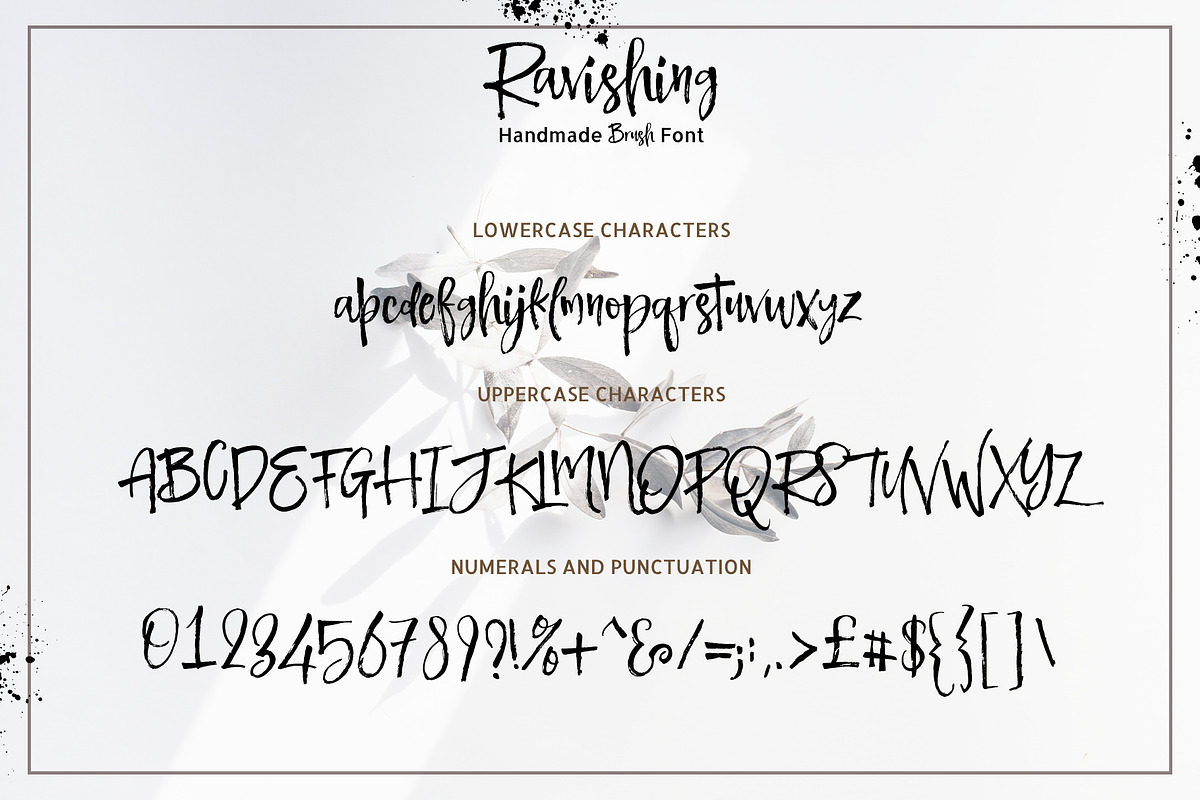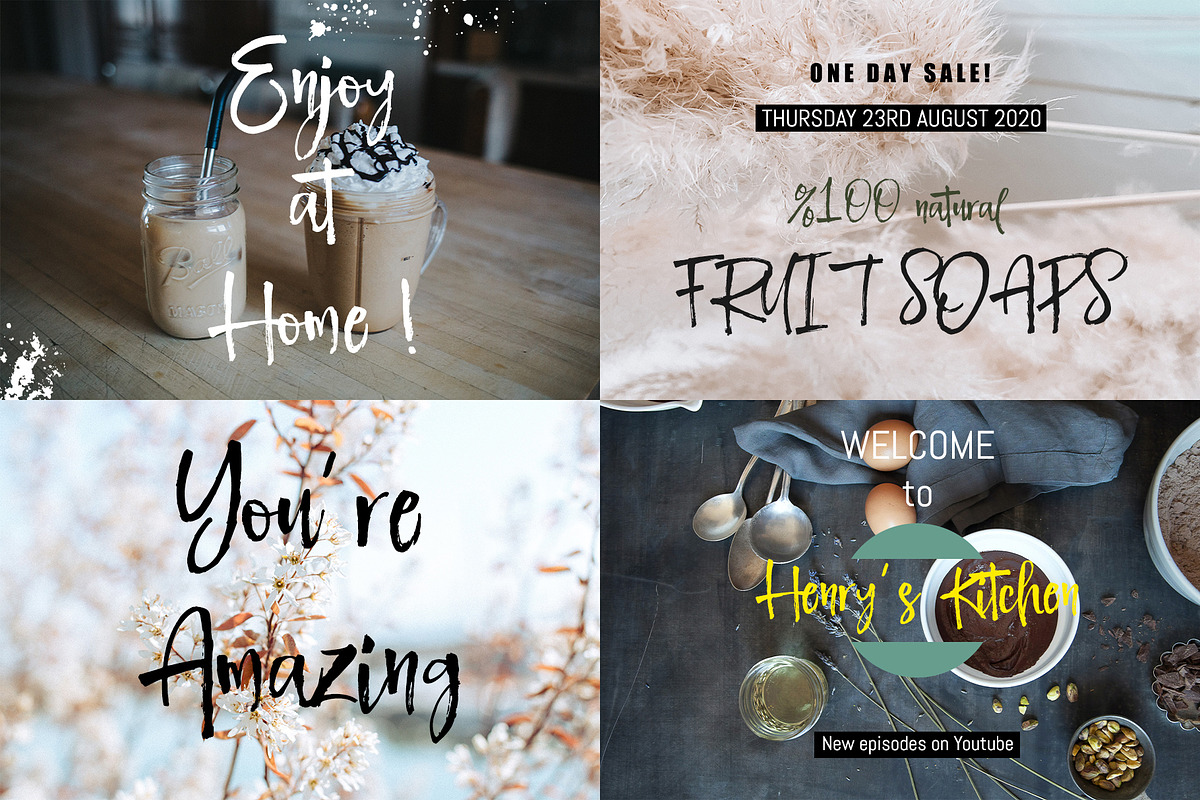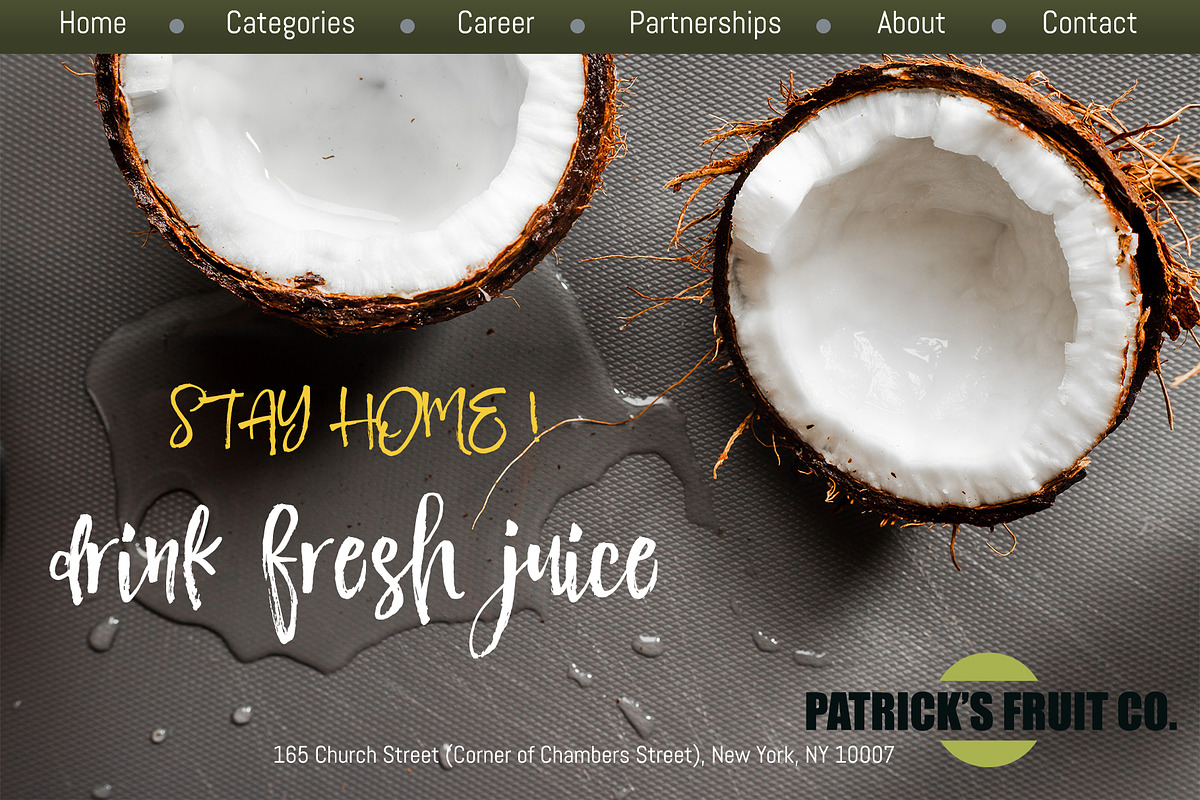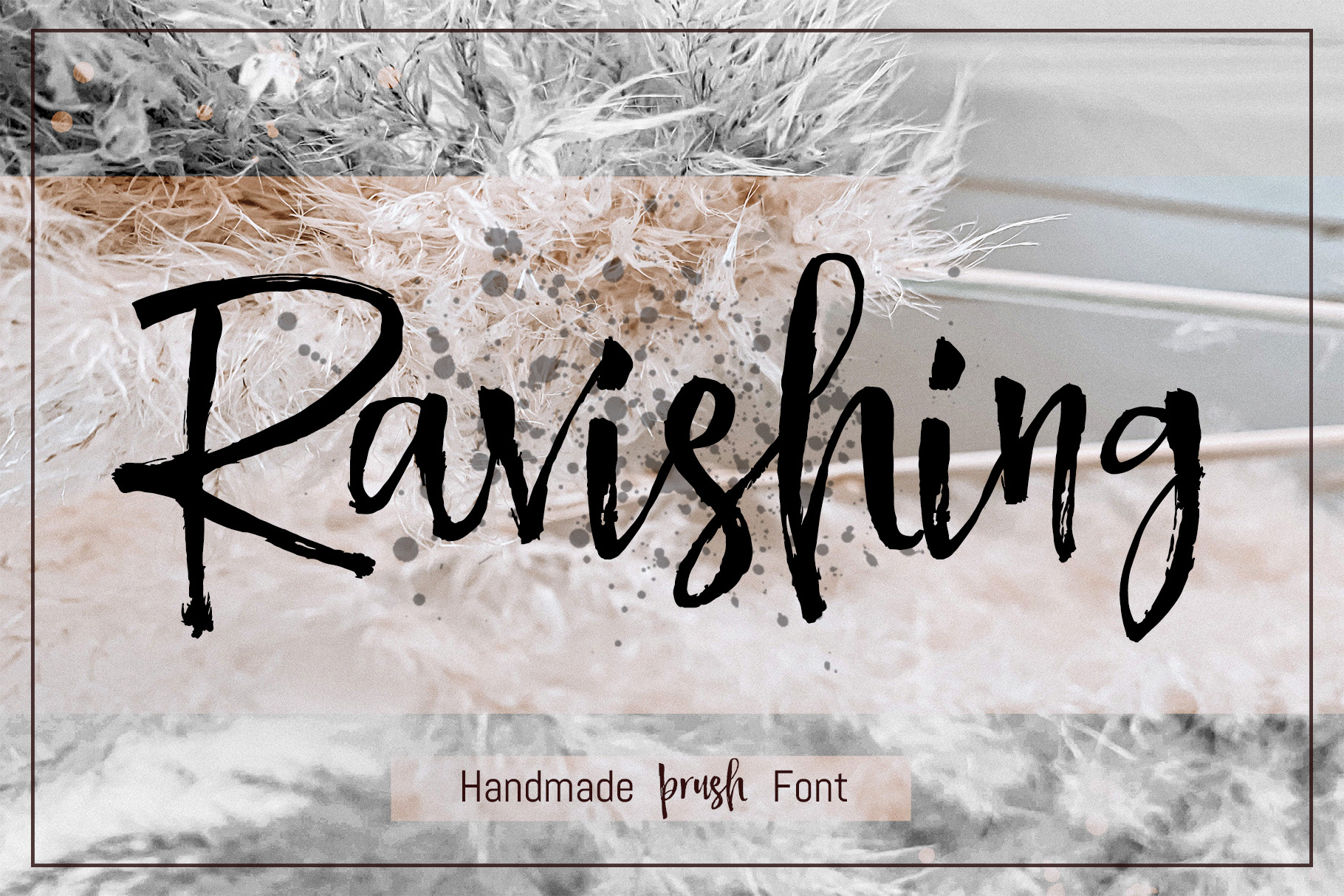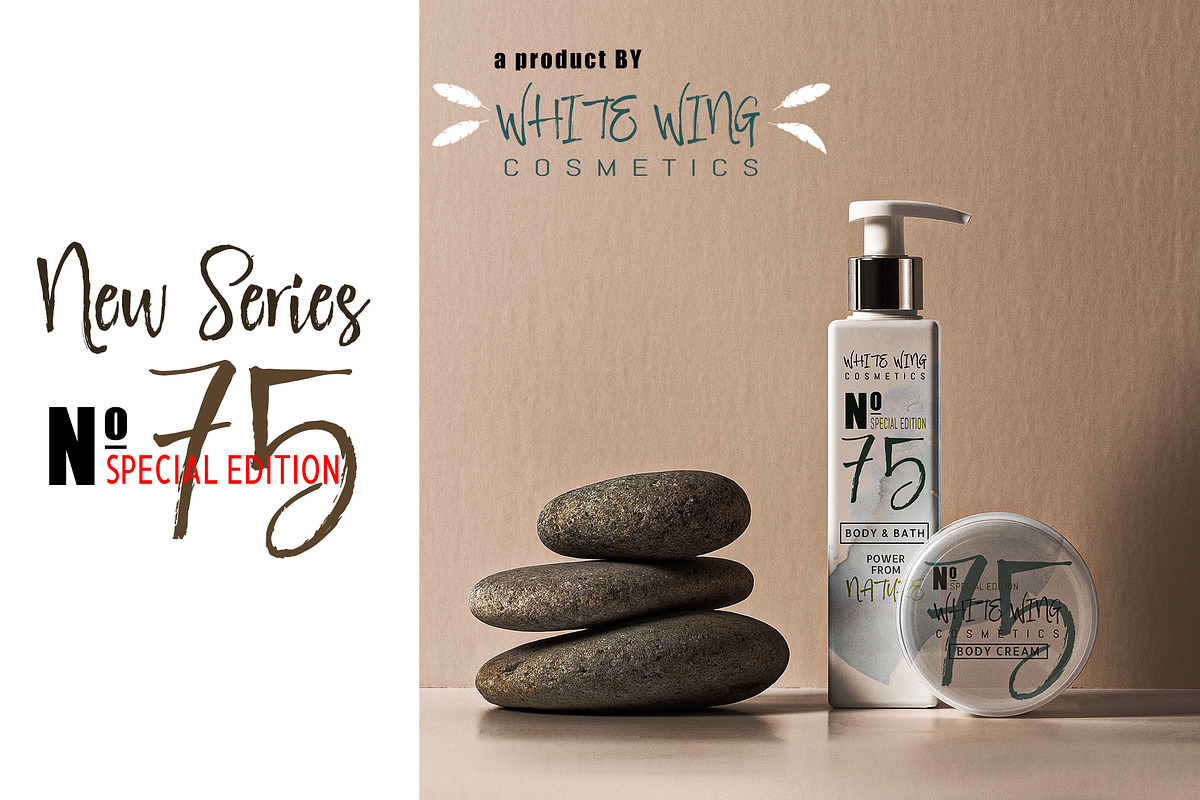
Ravishing Brush Font
Ravishing Brush Font has almost an unique design that posseses elegancy and charm. Fluidity of ink and hardness of brush created the unique characteristics of the font. You can see the harmony of the curls among the letters. With Ravishing , you can make your projects, brands, presentation of your collections, magazines, logos, packagings and websites be eye-catching with pleasure.
- Numbers and Symbols
- Alternate Characters